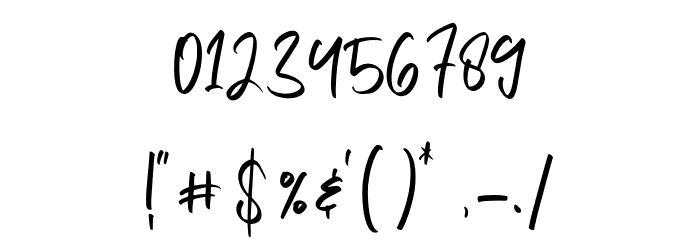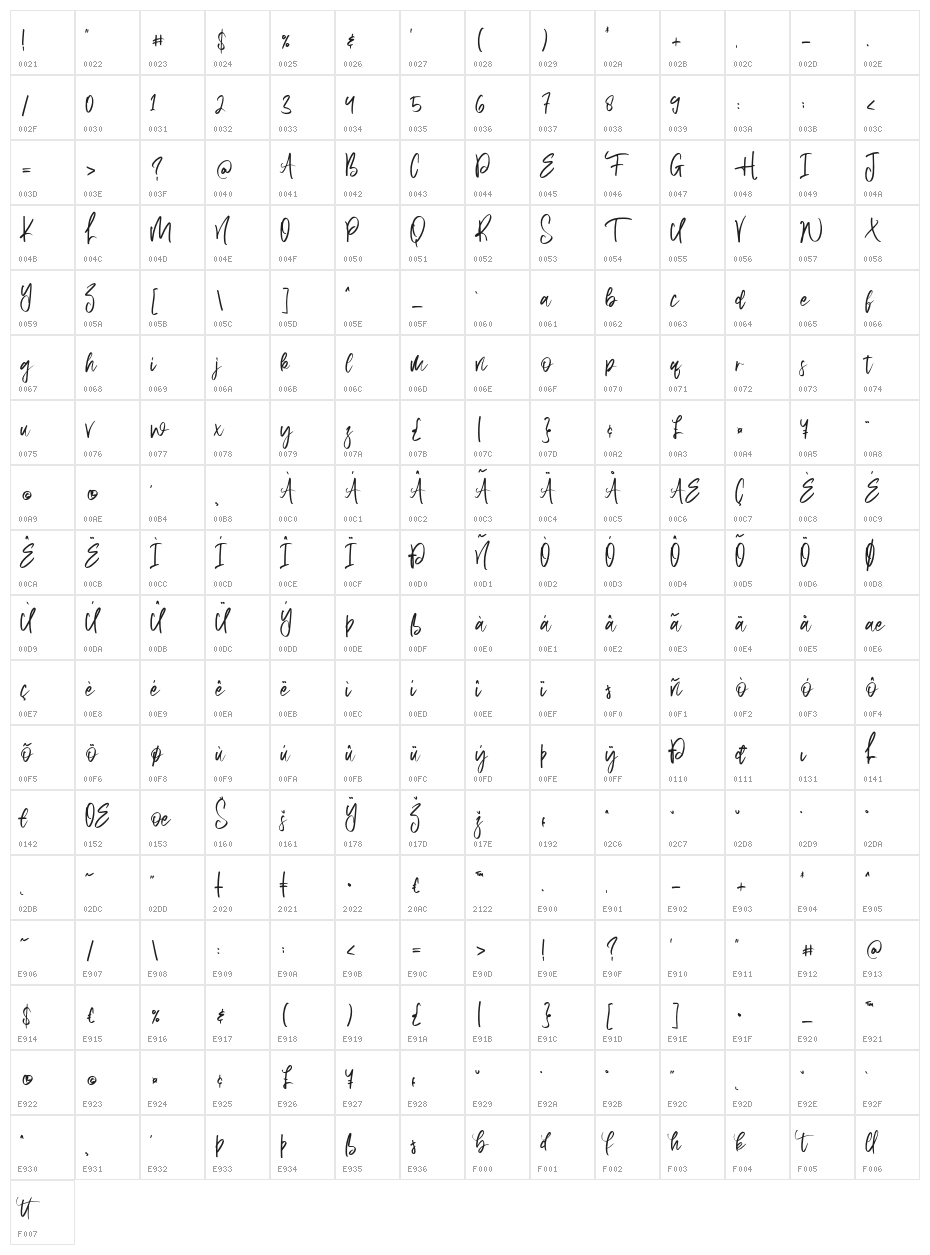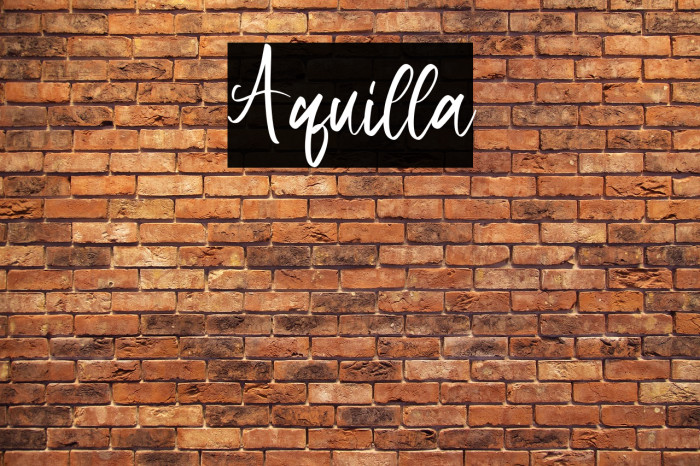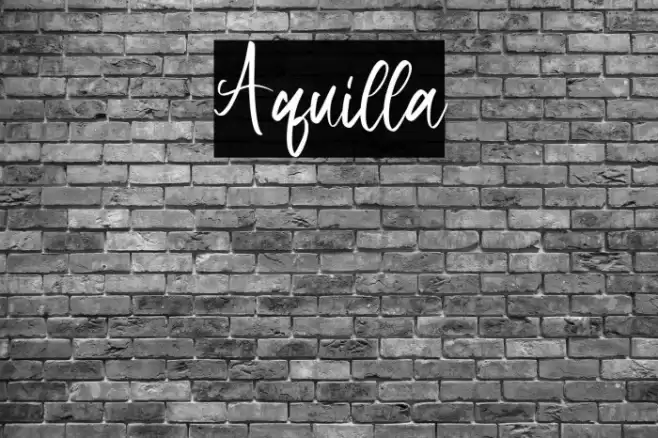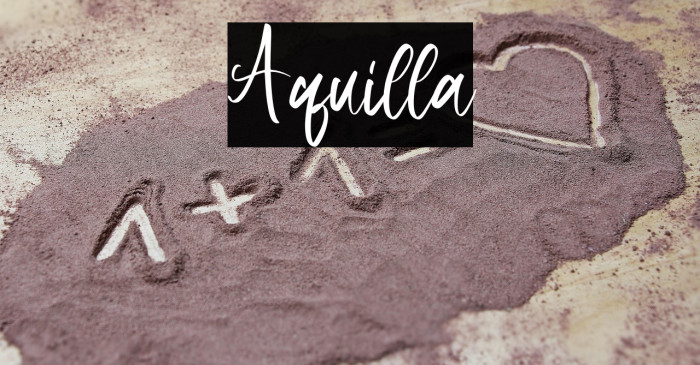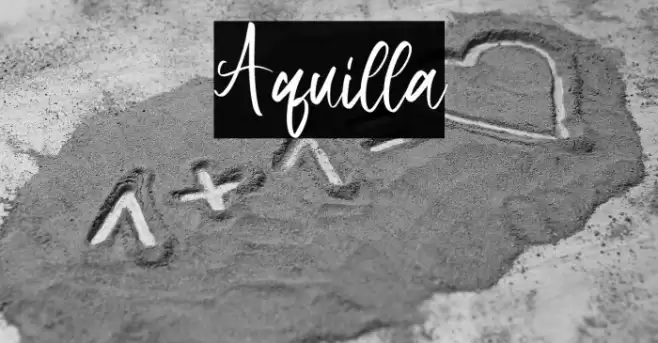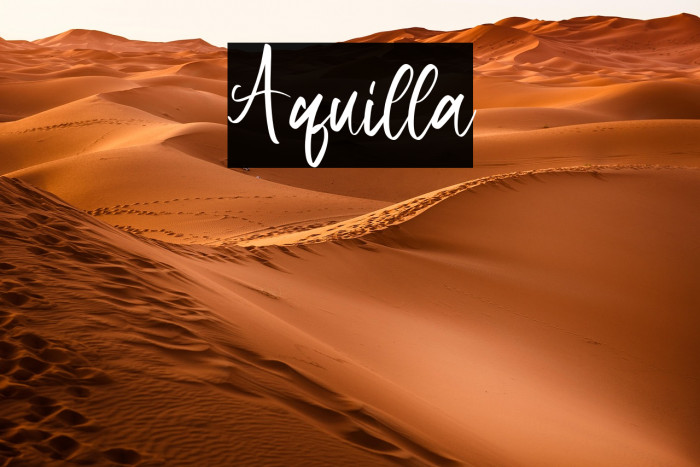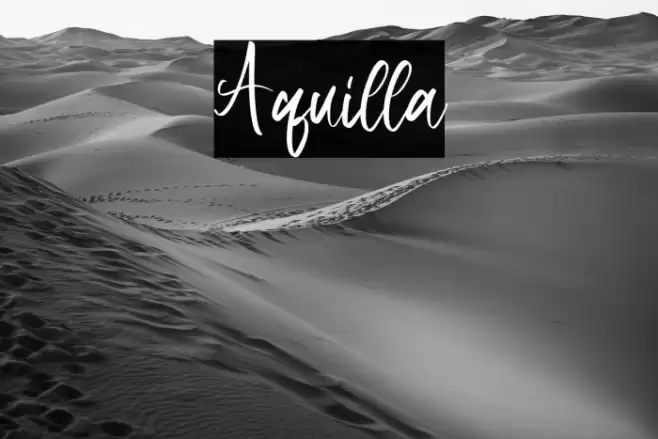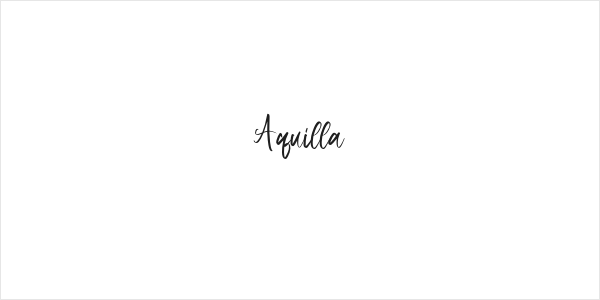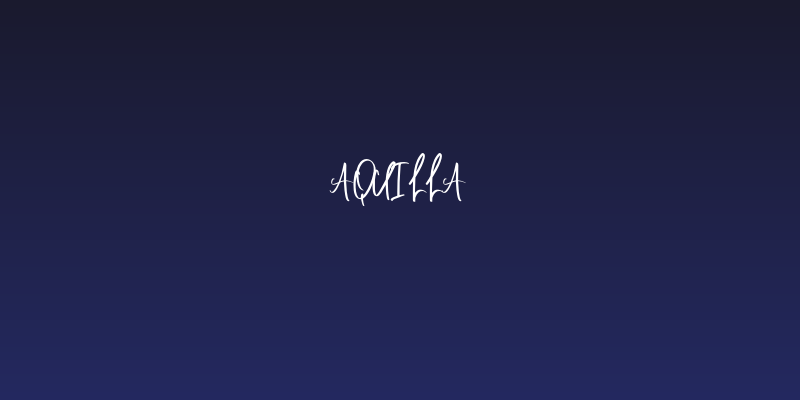
Aquilla Font
Aquilla Description
This font exudes a lively and expressive character, featuring a handwritten style that is both elegant and dynamic. The uppercase letters are bold and sweeping, with a playful yet sophisticated flair. The lowercase letters maintain a consistent flow, enhancing the font's overall cohesion. Numbers and special characters are crafted with the same attention to detail, ensuring versatility across various applications. The strokes are smooth and fluid, with a medium contrast that adds depth without overwhelming the design. This font is perfect for projects that require a personal touch, such as invitations, greeting cards, or branding materials.